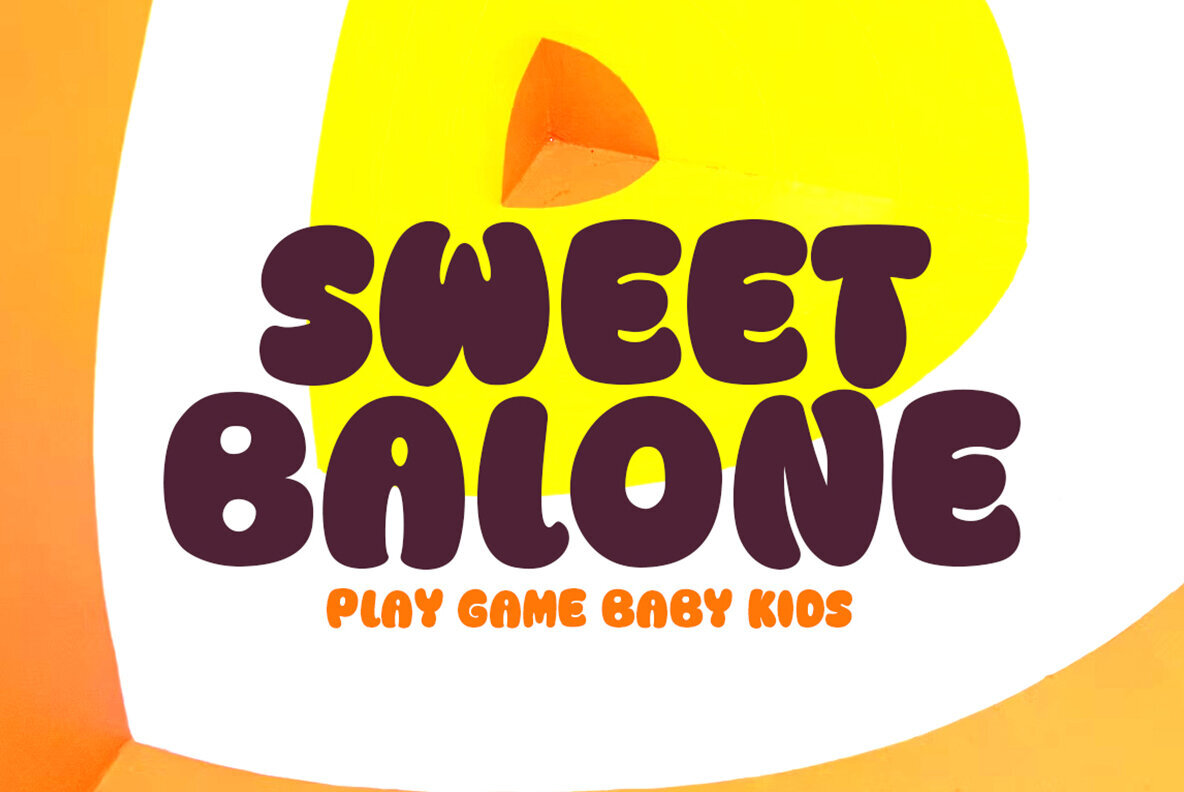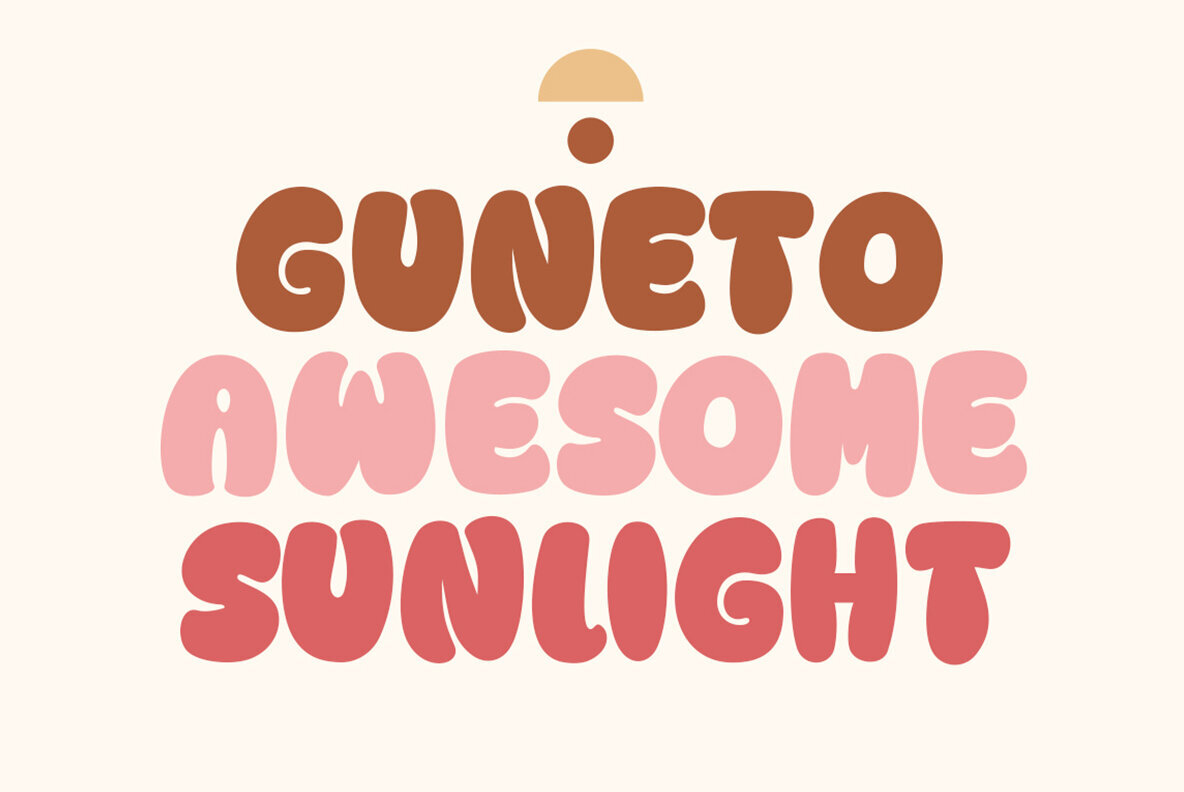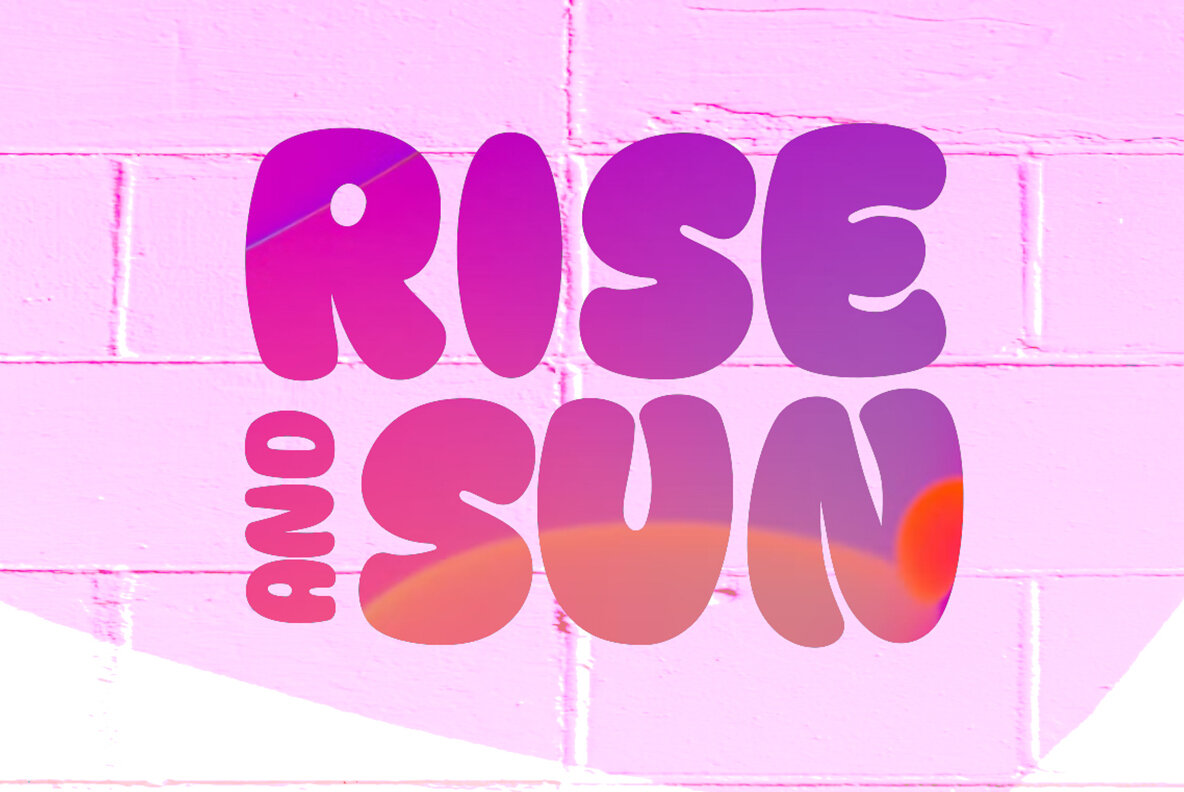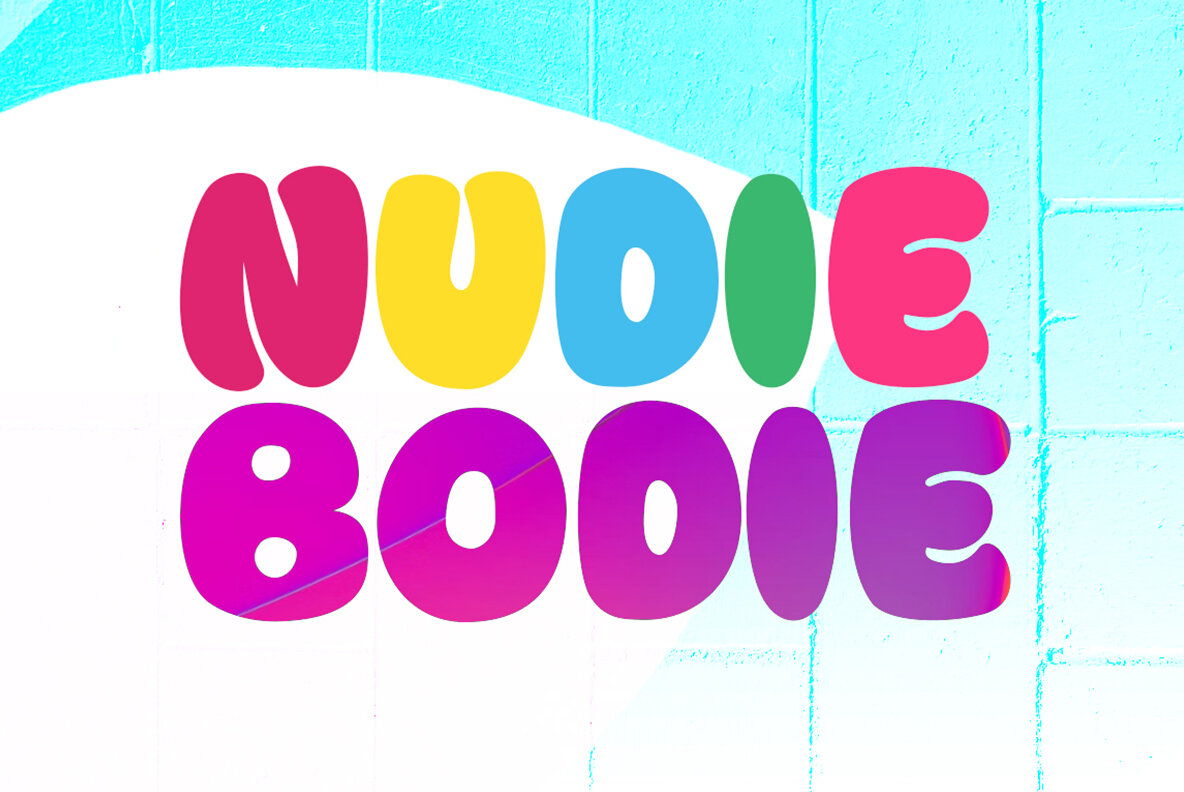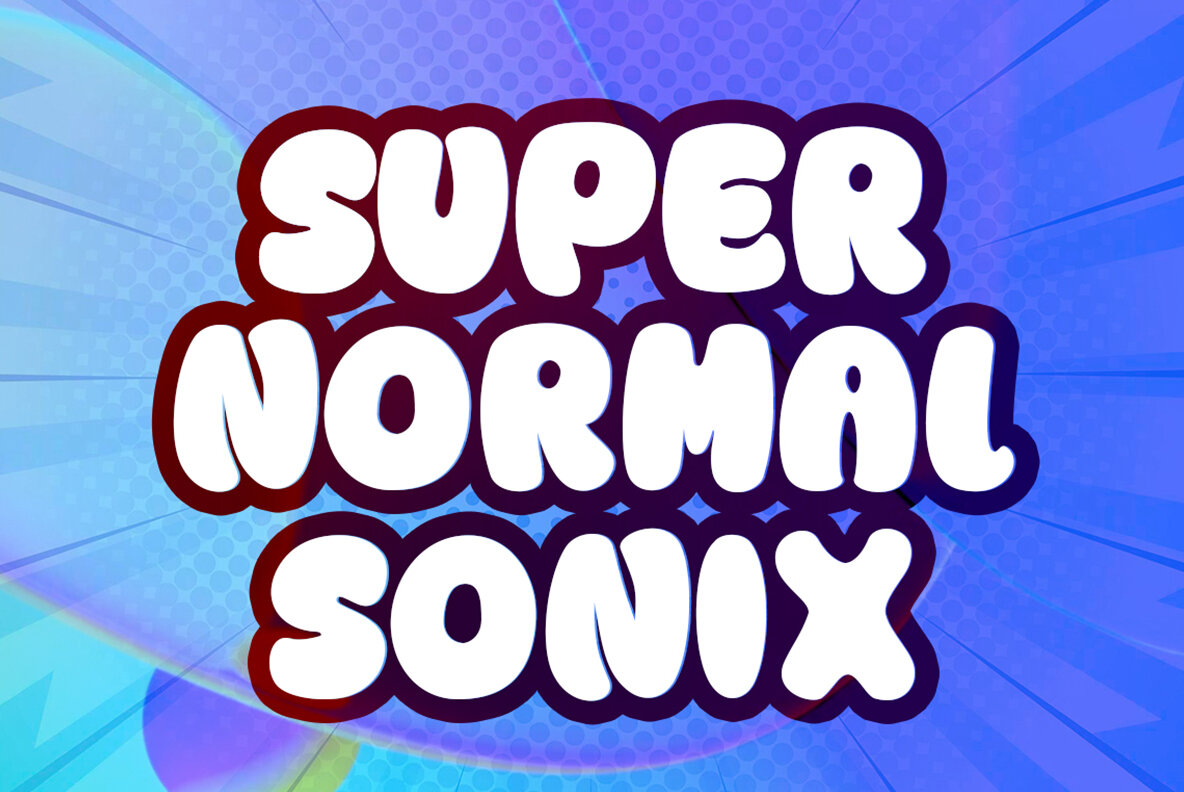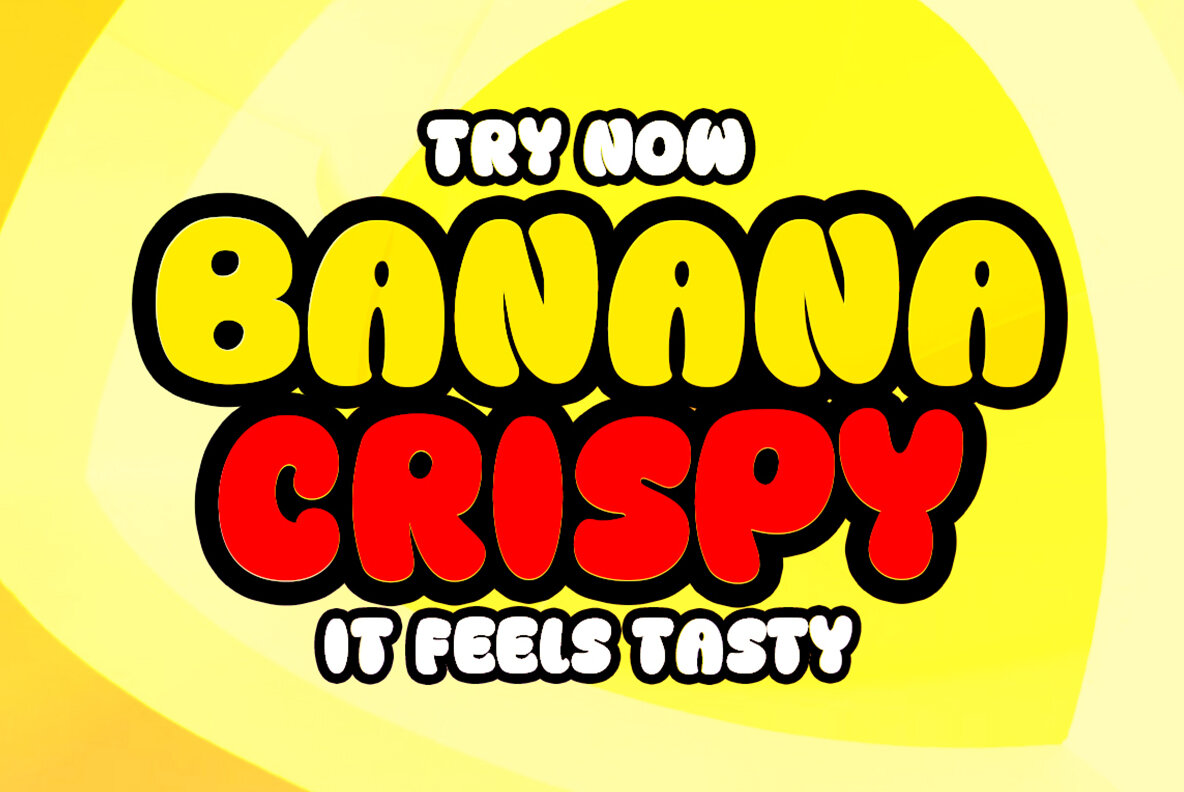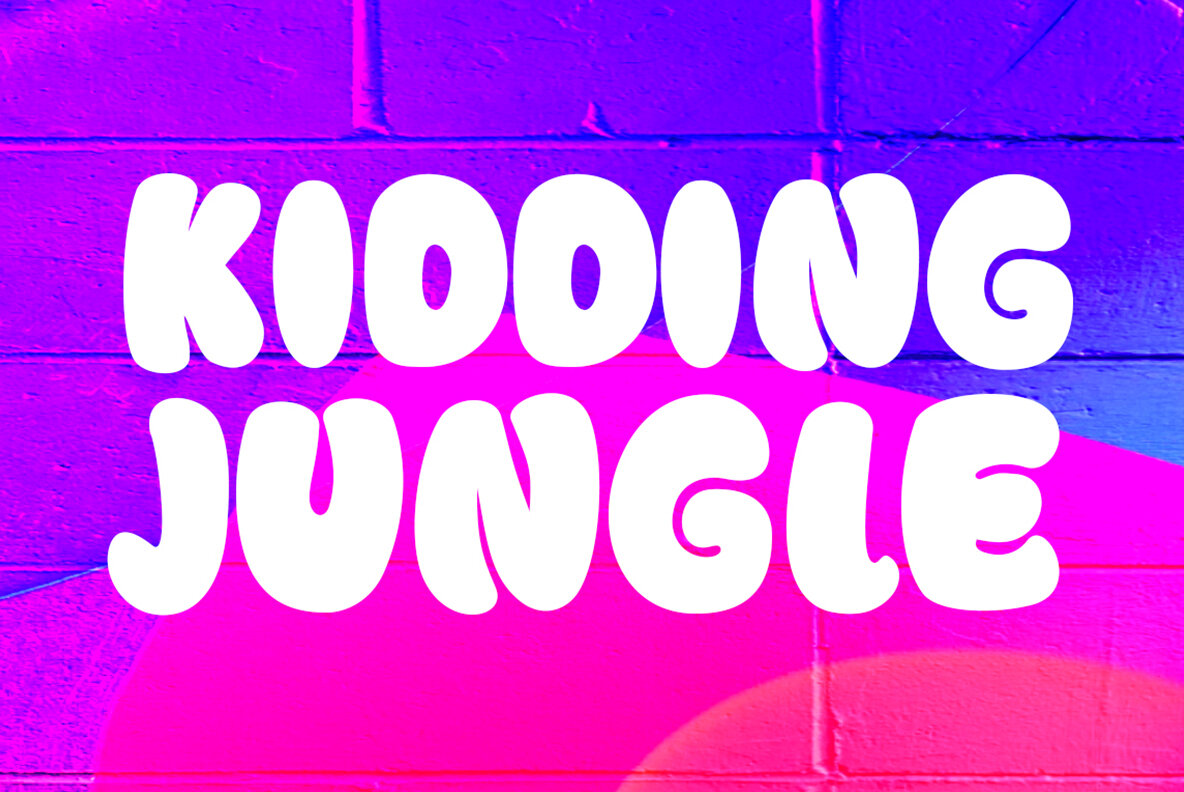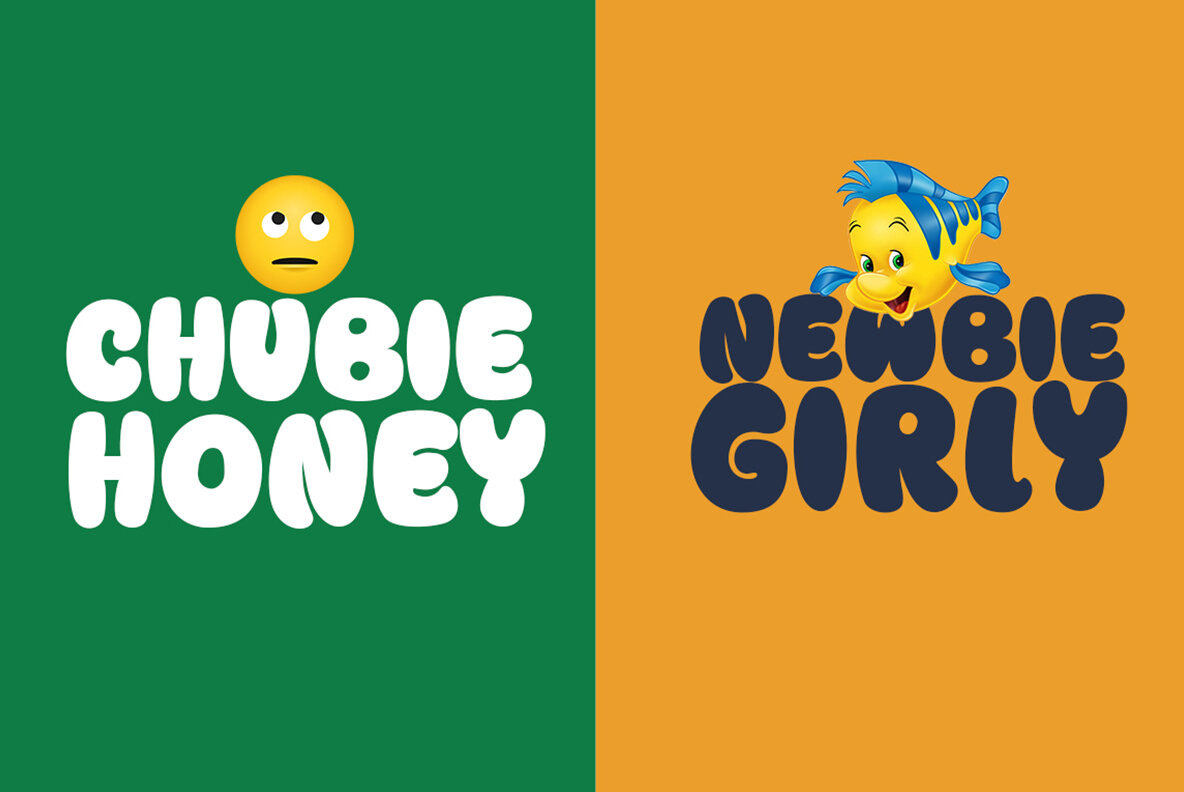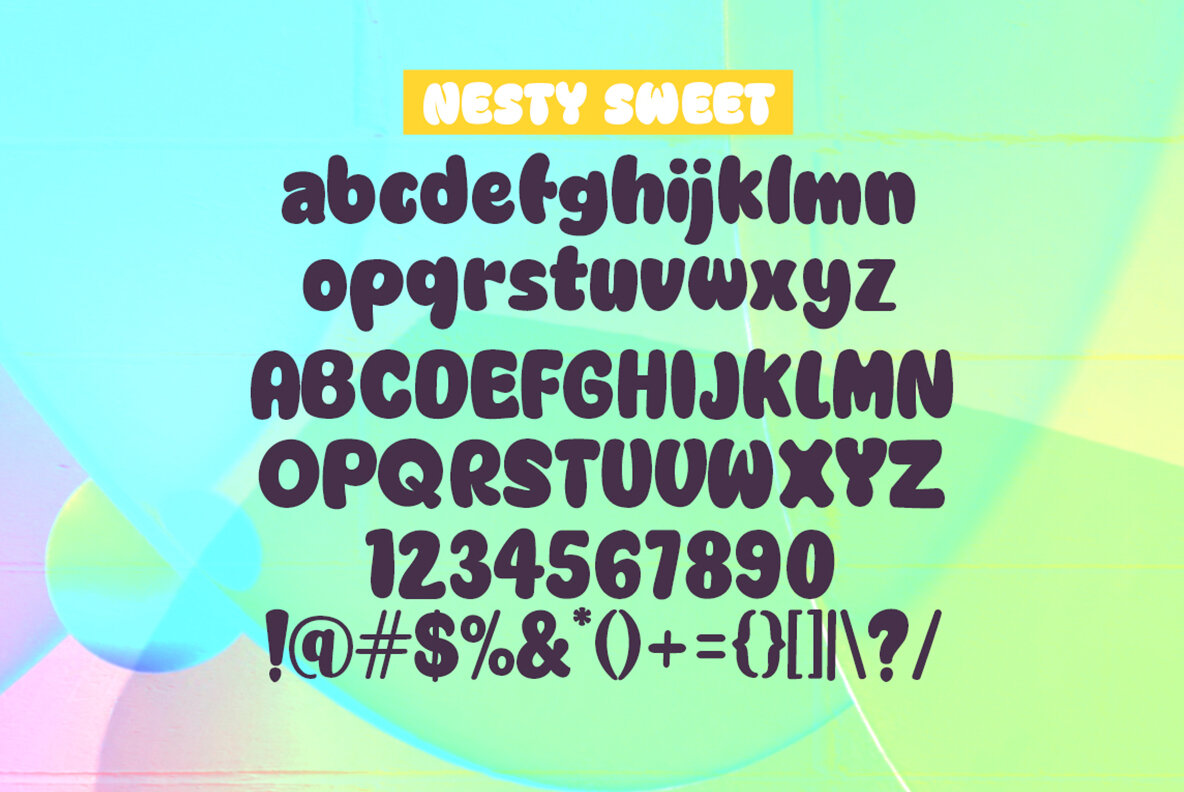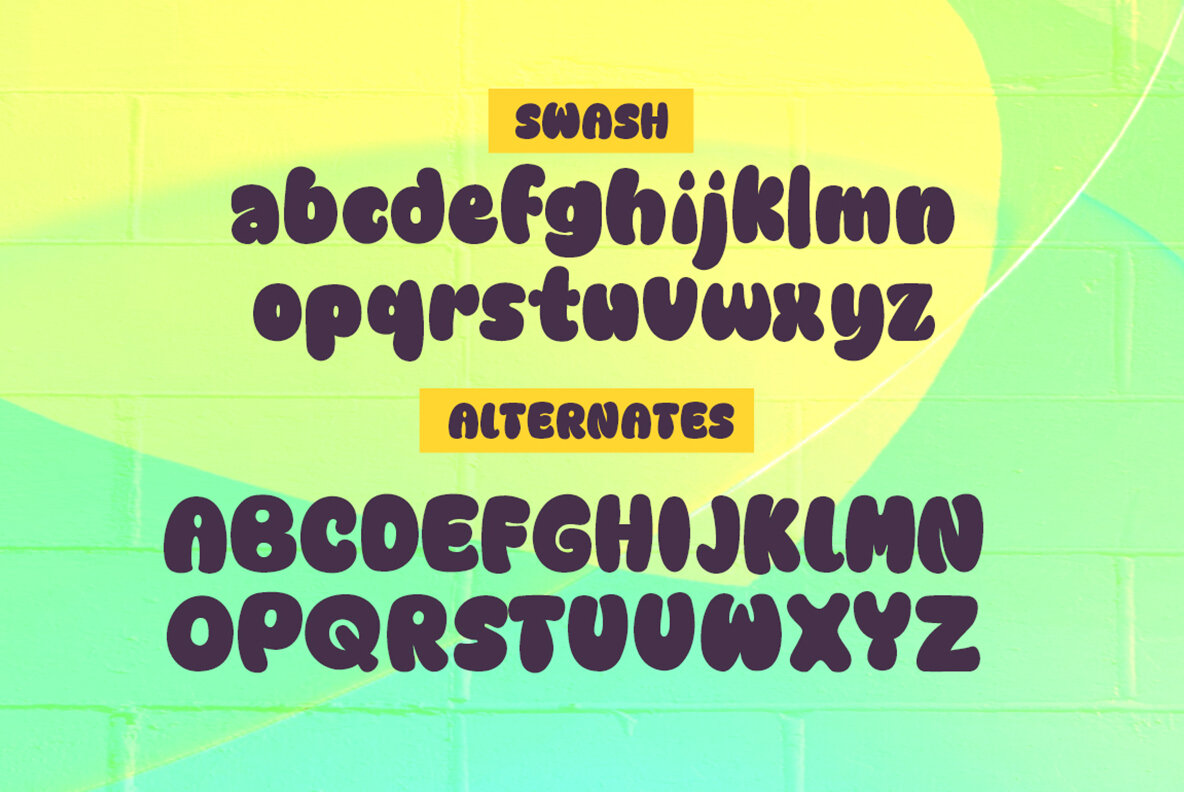
Nesti Sweet Font
Nesti Sweet Regular
Nesti Sweet is a round bubble display font that stands out with its contemporary character design. Ideal for headlines, business cards, leaflets, magazines, children's events, and brand screen printing, it brings a unique, trendy appeal to any project.